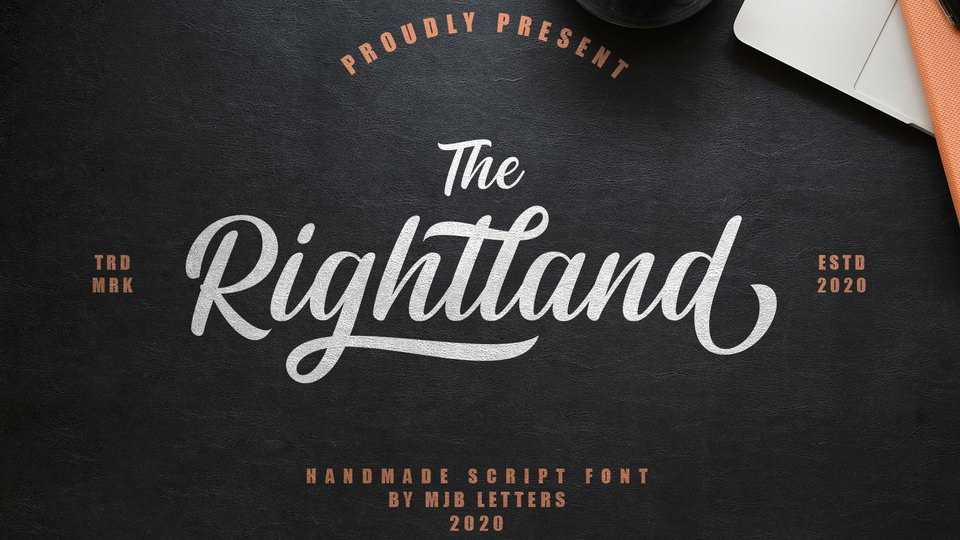
Download Rightland font, a modern bold hand lettered script, which is very strong and clean, has elegant swashes in each curve. Rightland can be applied to various design needs such as logos, posters, branding packaging and others.
Designer: MJB Letters